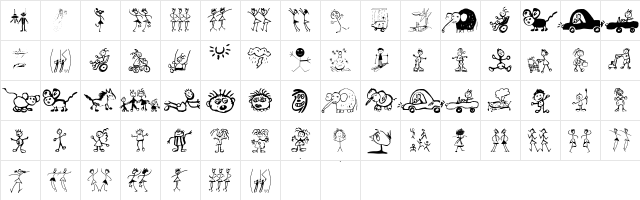
Kidsfontone Regular
Design Context for Kidsfontone Typeface
Kidsfontone has an approachable, lighthearted character — its loose, expressive forms are well-suited to children's content, casual branding, and fun-first design.
Font Pairing: Pairs well with a rounded or humanist sans for body copy, maintaining the friendly tone without relying on Kidsfontone to carry extended reading.
Pro Tip: Avoid using Kidsfontone for long passages of text — it works best for headlines, labels, and short calls to action.